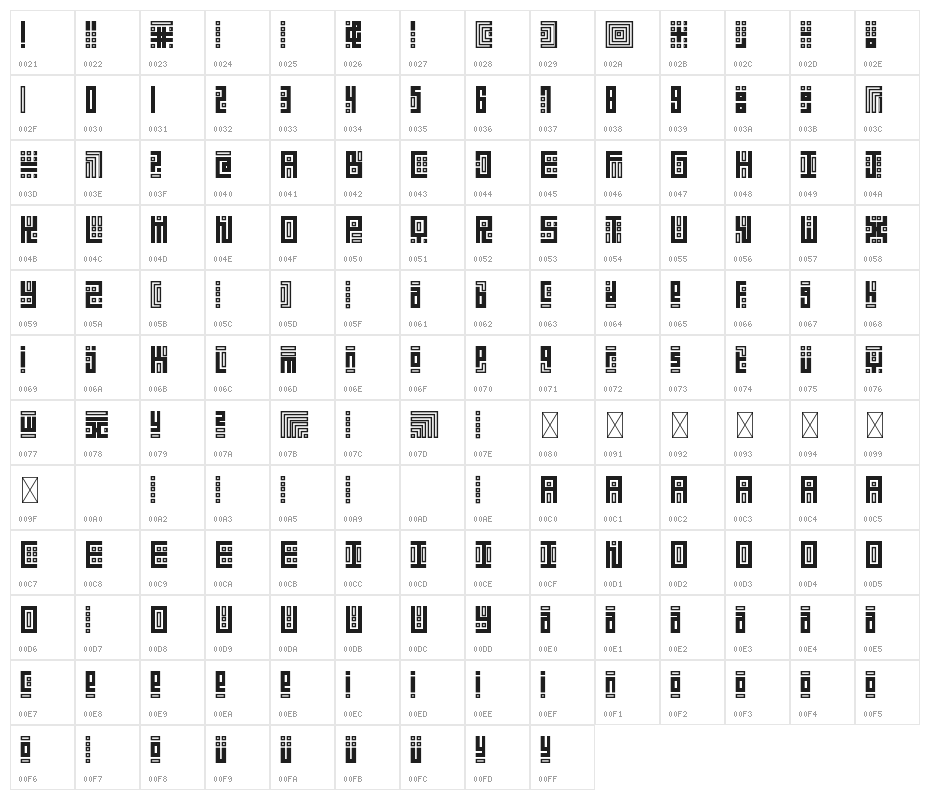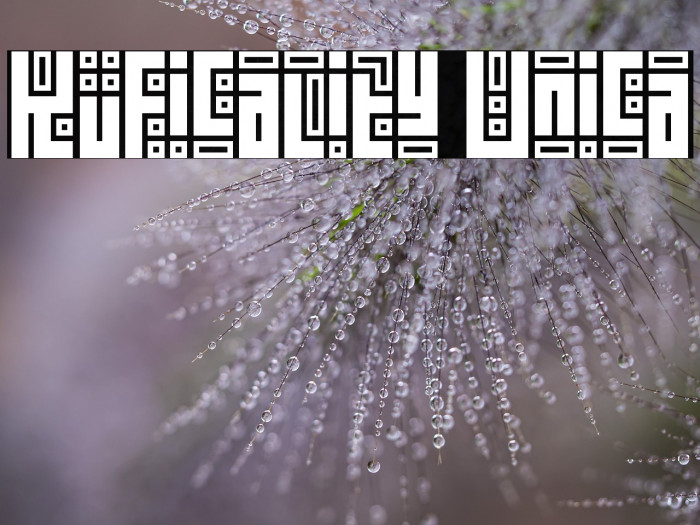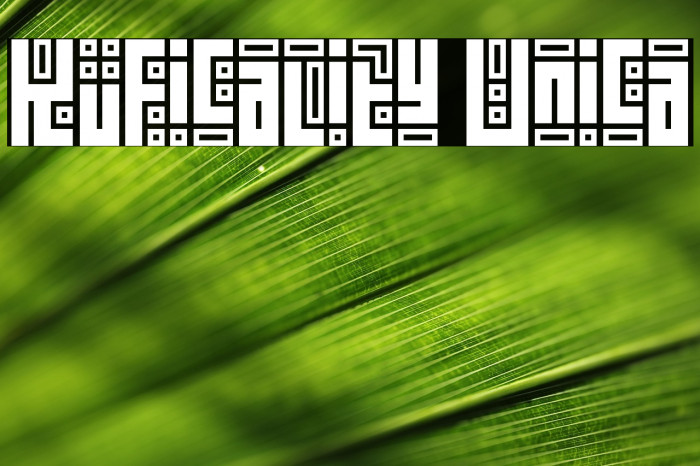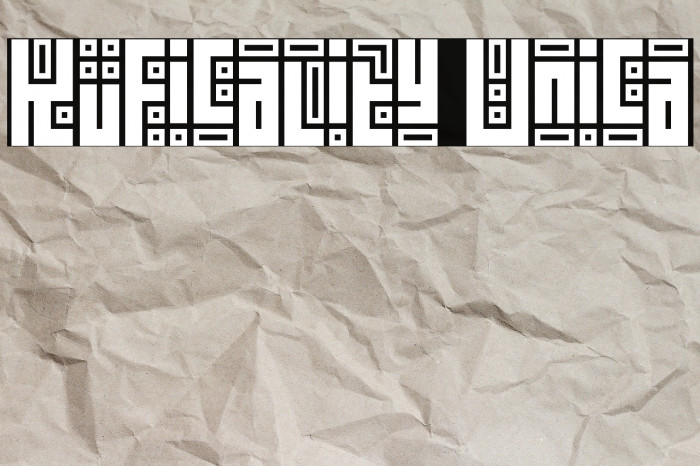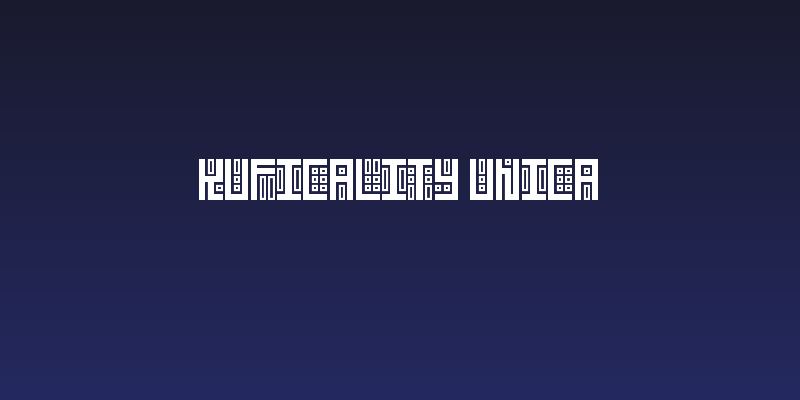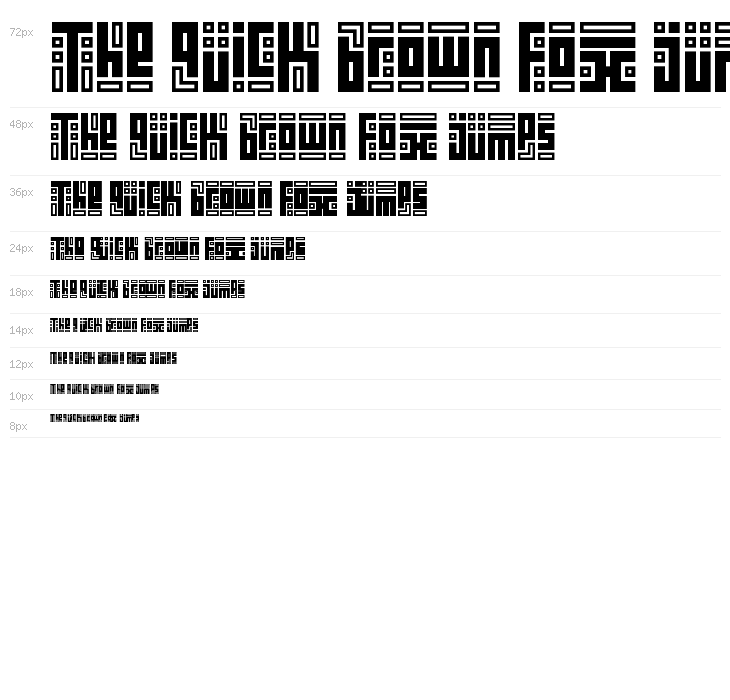
Kuficality Unica Font
Kuficality Unica Description
This font features a unique and intricate design inspired by geometric and abstract patterns. Each character is composed of bold, block-like shapes with a maze-like appearance, creating a visually striking and complex aesthetic. The characters are uniform in width, contributing to a monospaced feel, while the intricate detailing within each letter adds a decorative touch. The font's style is reminiscent of ancient scripts, yet it maintains a modern edge through its structured and symmetrical design. The use of negative space within the characters enhances their distinctiveness, making it suitable for projects that require a bold and artistic statement.
| Use Case | Logos, Posters, Artistic designs |
| Proposed Projects | Ideal for branding, logos, posters, and any design work that requires a bold, artistic flair. |